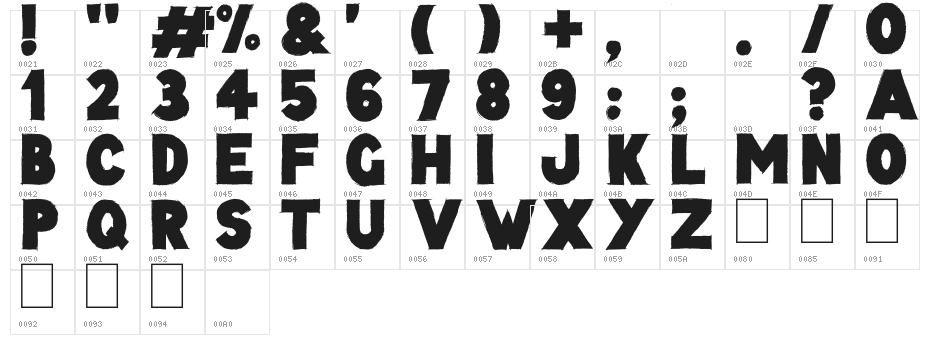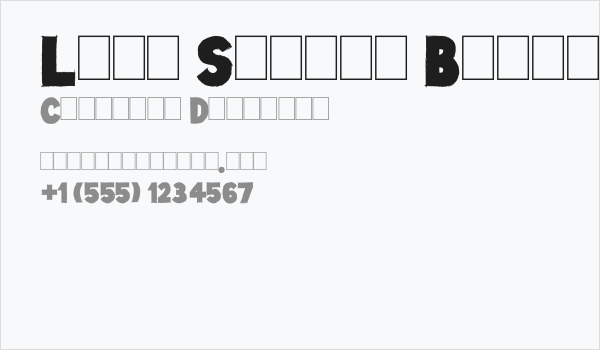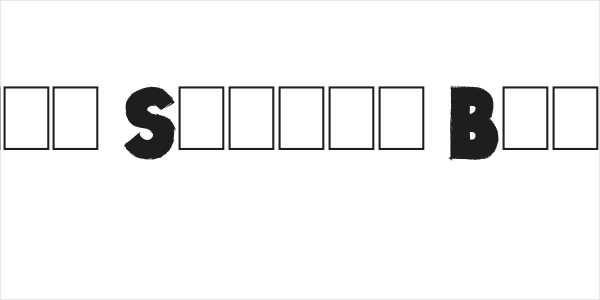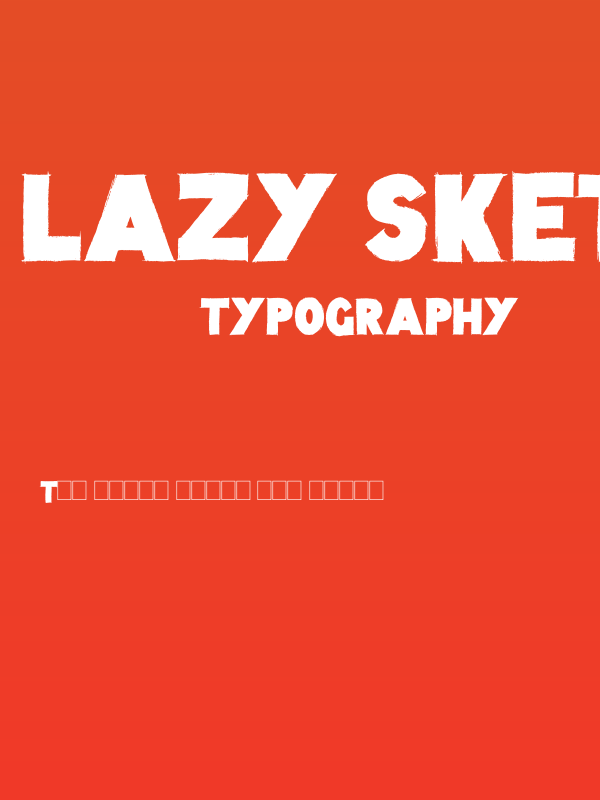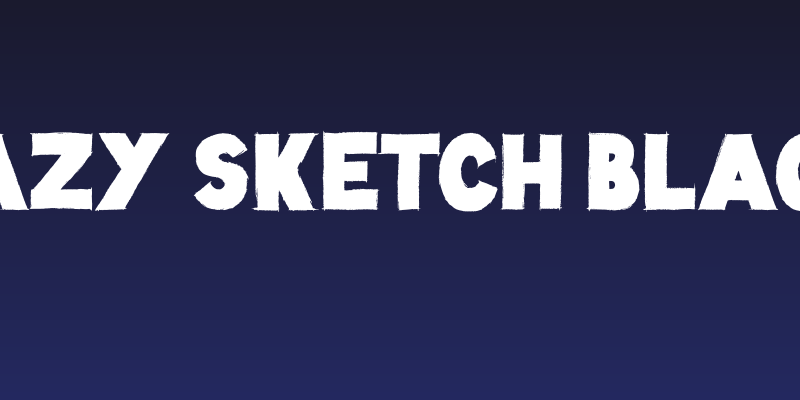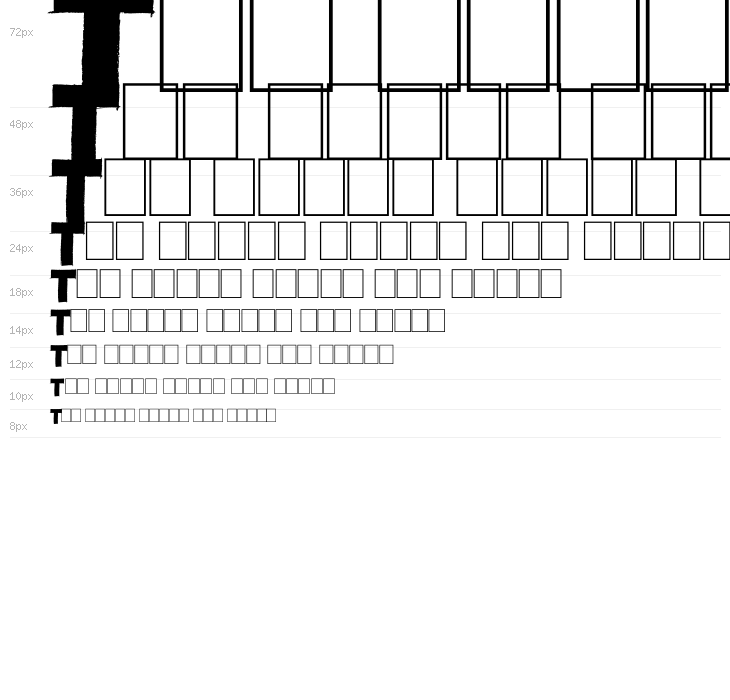
Lazy Sketch Black Font
Lazy Sketch Black Description
This font features a bold, hand-drawn style with thick, uneven strokes that give it a playful and artistic appearance. The characters are slightly irregular, adding a casual and dynamic feel. The uppercase letters are prominent and impactful, while the lowercase letters maintain the same boldness, ensuring consistency across the typeface. Numbers and special characters follow the same design principles, making them stand out with their robust and sketch-like quality. This font is ideal for projects that require a strong visual impact and a creative touch.
| Proposed Projects | Ideal for posters, branding, children's books, and creative projects that require a bold, artistic touch. |